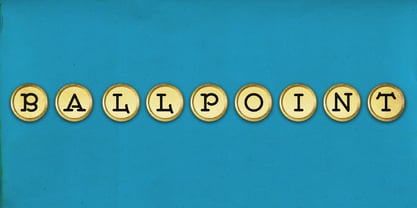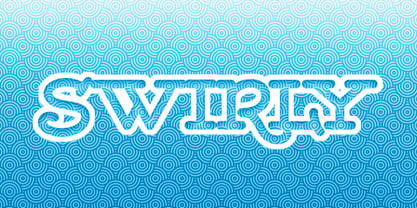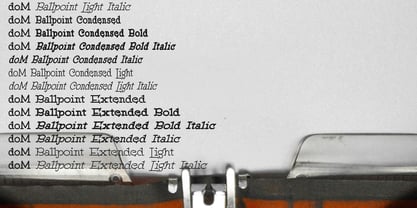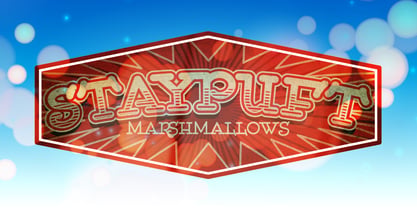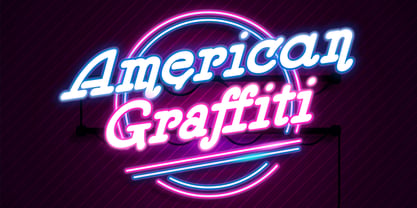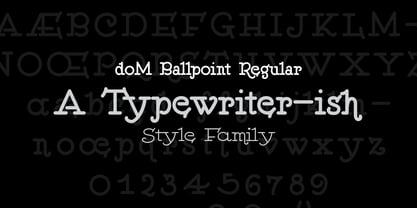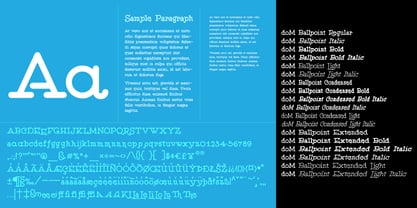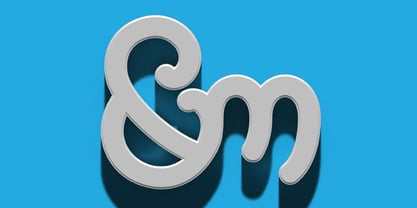
DOM Ballpoint Serif
The DOM Ballpoint Serif Font Family was designed by Matthew Gallagher and published by designoMatt. DOM Ballpoint Serif contains 18 styles and family package options. More about this family
doM Ballpoint Regular is based on old dip-pen manual from the early 20th Century. This profile used for the font is a round nib pen and has the qualities similar to some “typewritten” styles. The font is robust with many alternates and ligatures while the family is robust with 18 total styles/weights. The focus in its creation has been in its use for typesetting, but with the numerous styles and weights it can be used for all graphic needs, from: logos, headlines, and decorative integrations it is can be a handy family in your design toolkit.